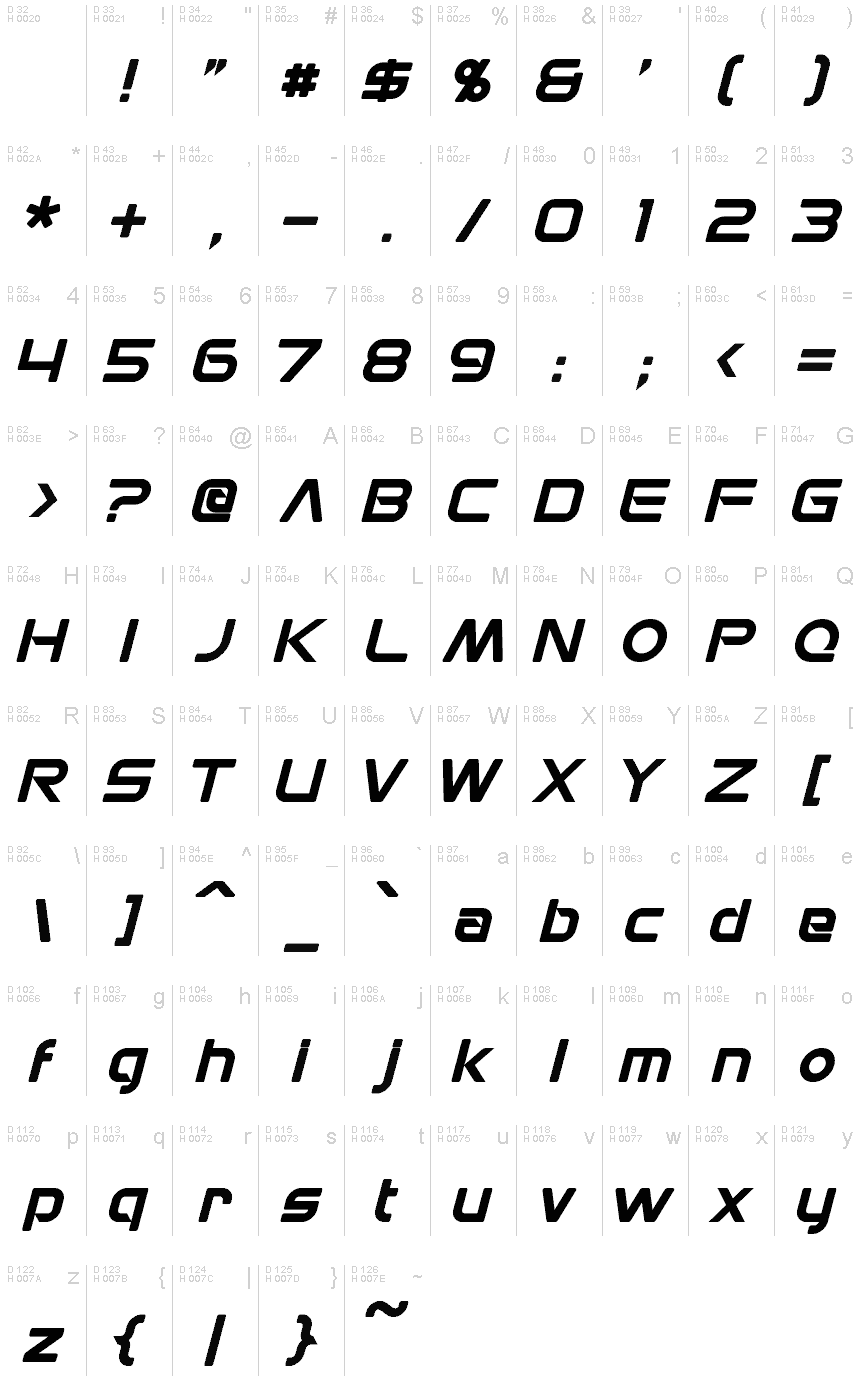
Mons Olympia Bold Italic
Mons Olympia is a bold and captivating display font that evokes a distinct retro-futuristic aesthetic. Inspired by the classic lettering of Walt Disney's renowned Space Mountain ride, this typeface seamlessly blends vintage charm with a sleek, modern sensibility. The striking italic design, complemented by its robust bold weight, exudes an air of confident dynamism.
Mons Olympia's full alphanumeric character set, extended punctuation, and inclusion of the euro symbol make it a versatile choice for a wide range of design applications, from bold headlines and titles to impactful branding and packaging.
Its retro-science-fiction inspired style lends itself particularly well to projects with a futuristic, space-age, or technological theme, where the font's bold presence and futuristic flair can truly shine.